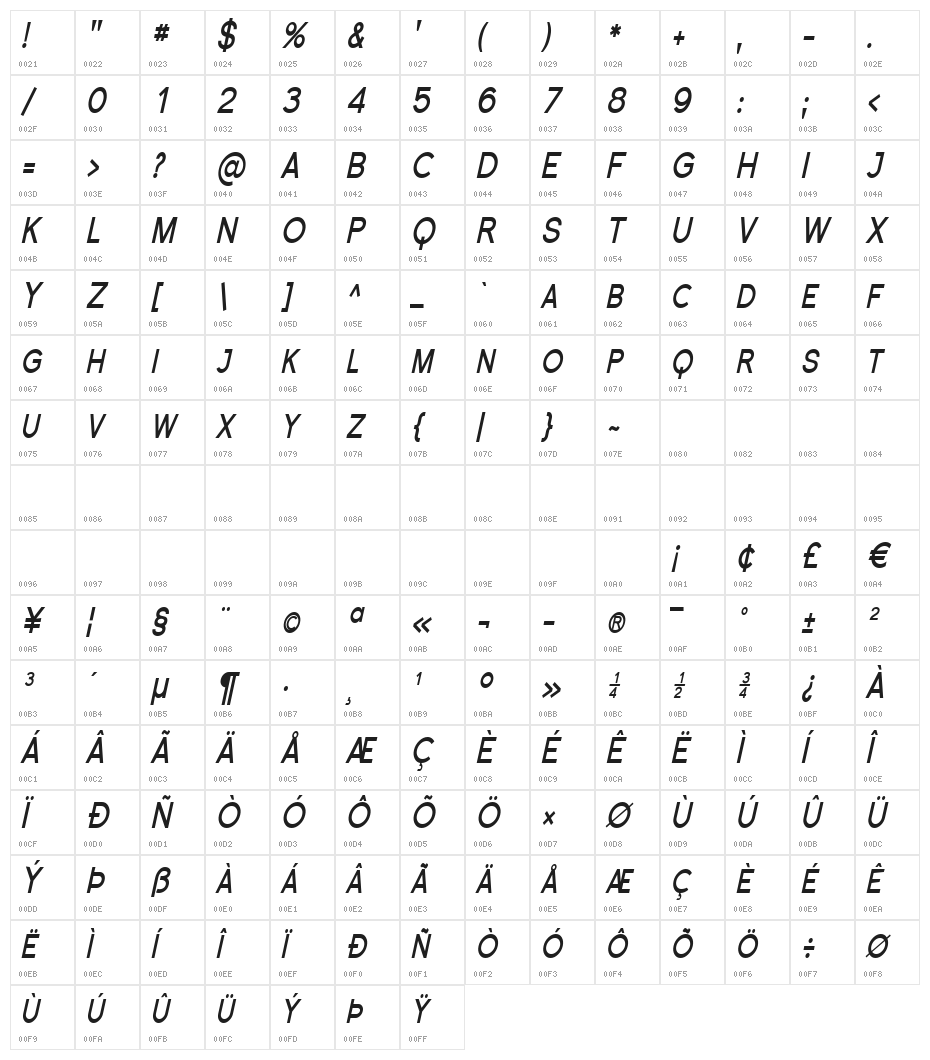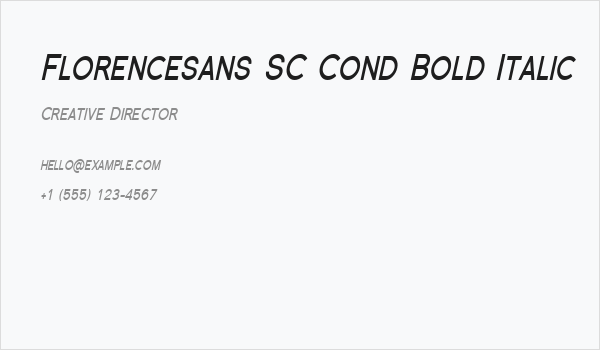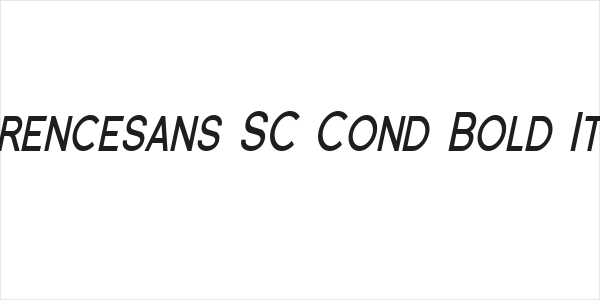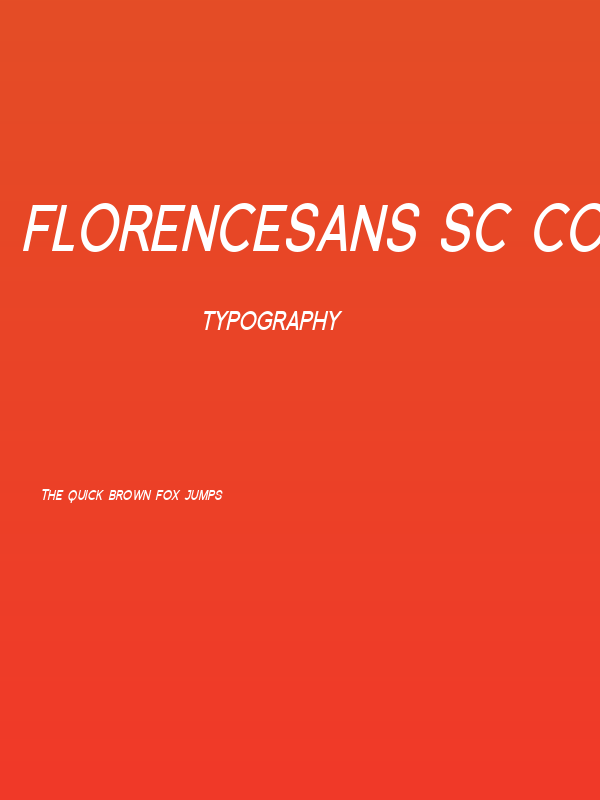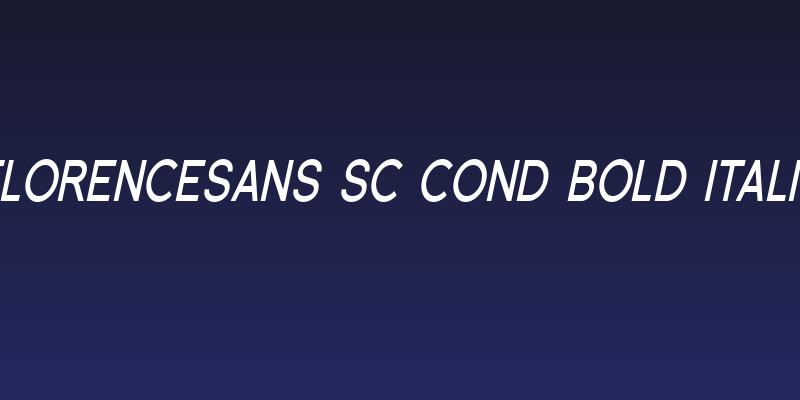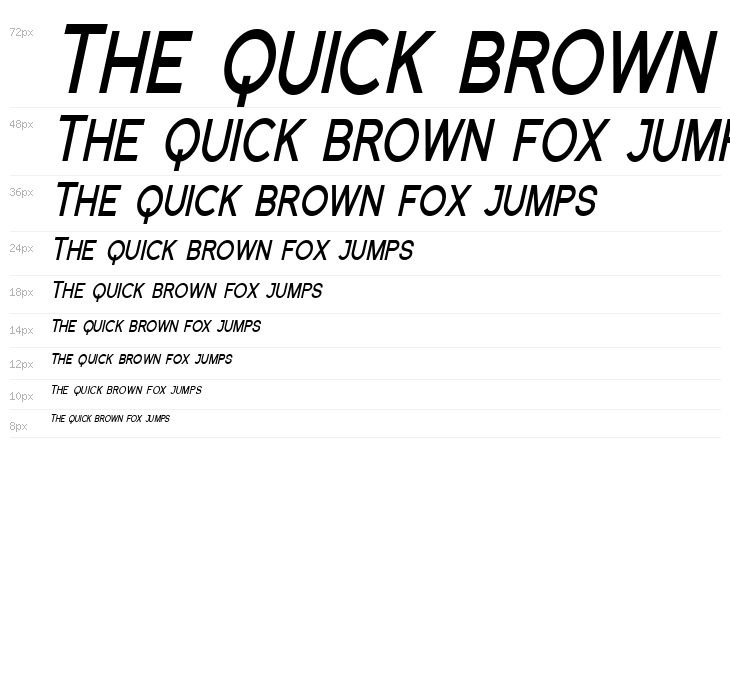
Florencesans SC Cond Bold Italic Font
Florencesans SC Cond Bold Italic Description
This font exhibits a sleek and modern aesthetic with a condensed structure and bold weight. Its italic style adds a dynamic and forward-leaning appearance, making it ideal for contemporary design projects. The characters are well-defined with a consistent stroke width, providing a clean and professional look. The spacing between characters is tight, enhancing its compact and efficient design. This font is versatile, suitable for both digital and print media, and can effectively convey a sense of urgency or modernity.
| Use Case | Headlines, Logos, Advertising |
| Proposed Projects | Ideal for branding, advertising, headlines, and modern web design. |